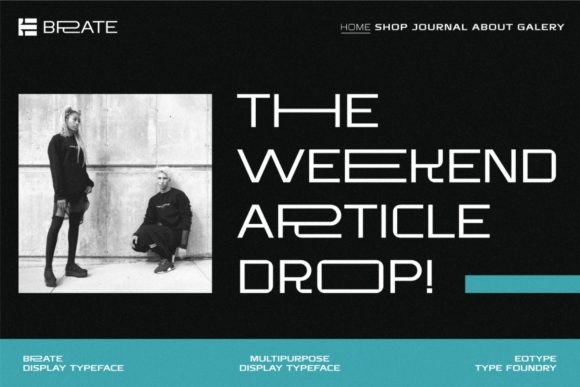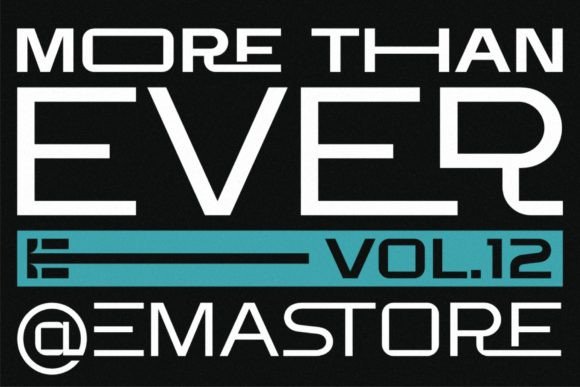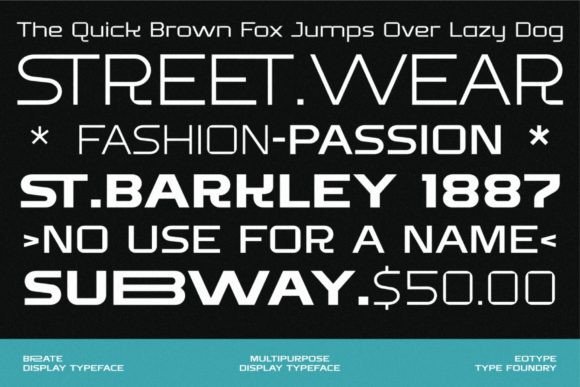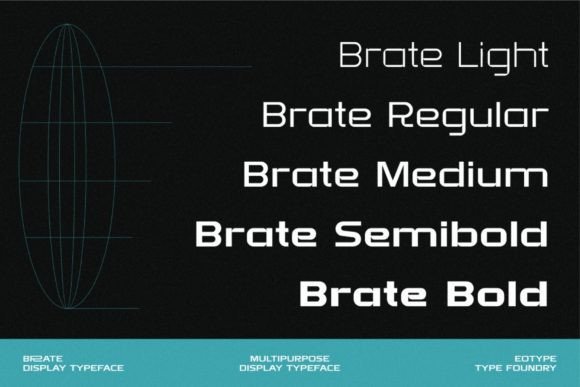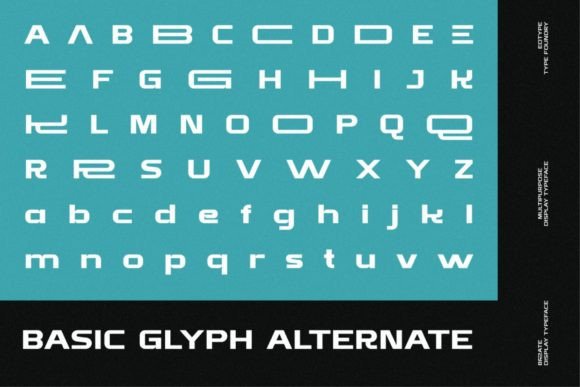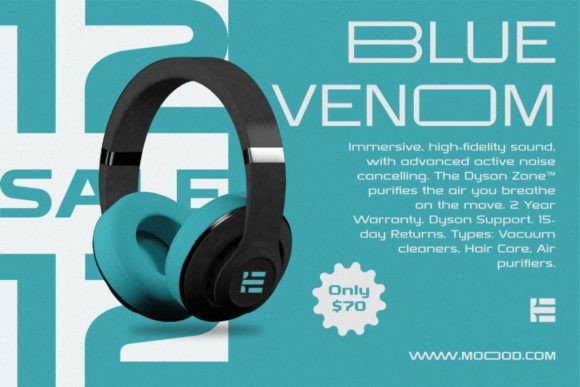
Introducing Brate Font: Elevate Your Designs with Style and Sophistication
In the world of typography, a font can make or break a design. If you’re a designer or crafter looking for a stylish and modern font to elevate your projects, look no further than Brate Font. This stunning font is meticulously crafted to make a statement, with clean lines and bold shapes that create a striking, contemporary look.
The Perfect Font for Logos, Headlines, and More
Brate Font is perfect for a variety of design applications, including logos, headlines, and other attention-grabbing design elements. Its bold and modern aesthetic makes it an excellent choice for designers who want to add a touch of sophistication to their projects. Whether you’re working on a branding campaign, a website, or a marketing material, Brate Font is sure to make your design stand out.
One of the standout features of Brate Font is its PUA (Private Use Area) encoding. This means that you can access all glyphs and swashes effortlessly, making it easy to customize your design to your heart’s content. With PUA encoding, you can easily insert special characters, ligatures, and other unique elements that will take your design to the next level.
Key Features of Brate Font
- Stylish and Modern Design: Brate Font boasts a stylish and modern design that’s perfect for making a statement.
- Clean Lines and Bold Shapes: Each letter is meticulously crafted with clean lines and bold shapes that create a striking, contemporary look.
- PUA Encoded: Brate Font is PUA encoded, making it easy to access all glyphs and swashes.
- Perfect for Logos and Headlines: This font is perfect for logos, headlines, and other attention-grabbing design elements.
Why Choose Brate Font?
So why choose Brate Font over other fonts on the market? Here are just a few reasons:
- Unique and Memorable: Brate Font is a unique and memorable font that’s sure to make your design stand out.
- High-Quality Design: Each letter is meticulously crafted to ensure a high-quality design that will impress your clients.
- Versatile: Brate Font is versatile and can be used for a variety of design applications.
- Easy to Customize: With PUA encoding, Brate Font is easy to customize to your heart’s content.
Tips and Tricks for Getting the Most Out of Brate Font
Here are a few tips and tricks for getting the most out of Brate Font:
- Experiment with Different Sizes and Colors: Brate Font looks great in a variety of sizes and colors, so don’t be afraid to experiment.
- Use it for Headlines and Logos: Brate Font is perfect for headlines and logos, so be sure to use it for these design elements.
- Combine it with Other Fonts: Brate Font pairs well with other fonts, so feel free to combine it with other fonts to create a unique look.
| Font Name | Brate Font |
| Author | eotype |
In conclusion, Brate Font is a stylish and modern font that’s perfect for designers and crafters looking to elevate their designs. With its clean lines, bold shapes, and PUA encoding, Brate Font is sure to make a statement. Whether you’re working on a branding campaign, a website, or a marketing material, Brate Font is a great choice. So why wait? Download Brate Font today and take your designs to the next level!